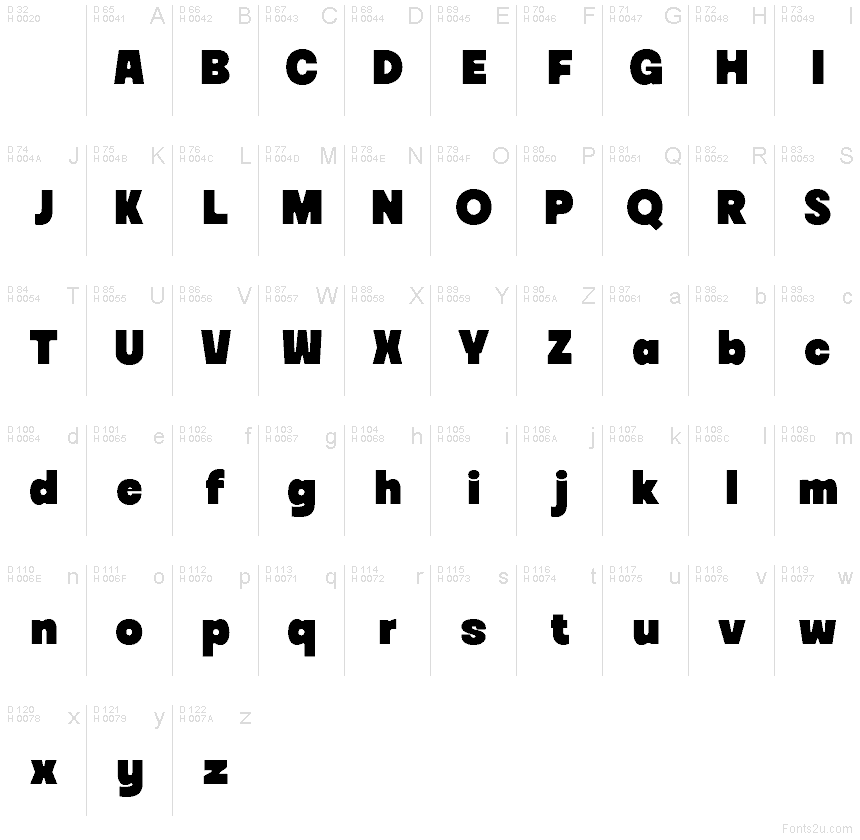
CS Garvey Regular Demo
CS Garvey font by Craft Supply Co. is a free bold sans serif font. It hits that rare sweet spot between slab-like impact and friendly curves—the strokes feel dense and confident, while the softened corners and generous counters keep it approachable. Letters lock together with a steady rhythm, so headlines read as solid, inky blocks without feeling stiff.
Using CS Garvey, you get punchy branding marks, packaging titles, posters, social graphics, signage, and thumbnail text that pop at a glance. This free font shines on tight, high-contrast layouts where clarity and warmth matter. Try pairing it with a light grotesk or geometric sans for body copy, and add a touch of tracking for small captions to keep the weight breathing.